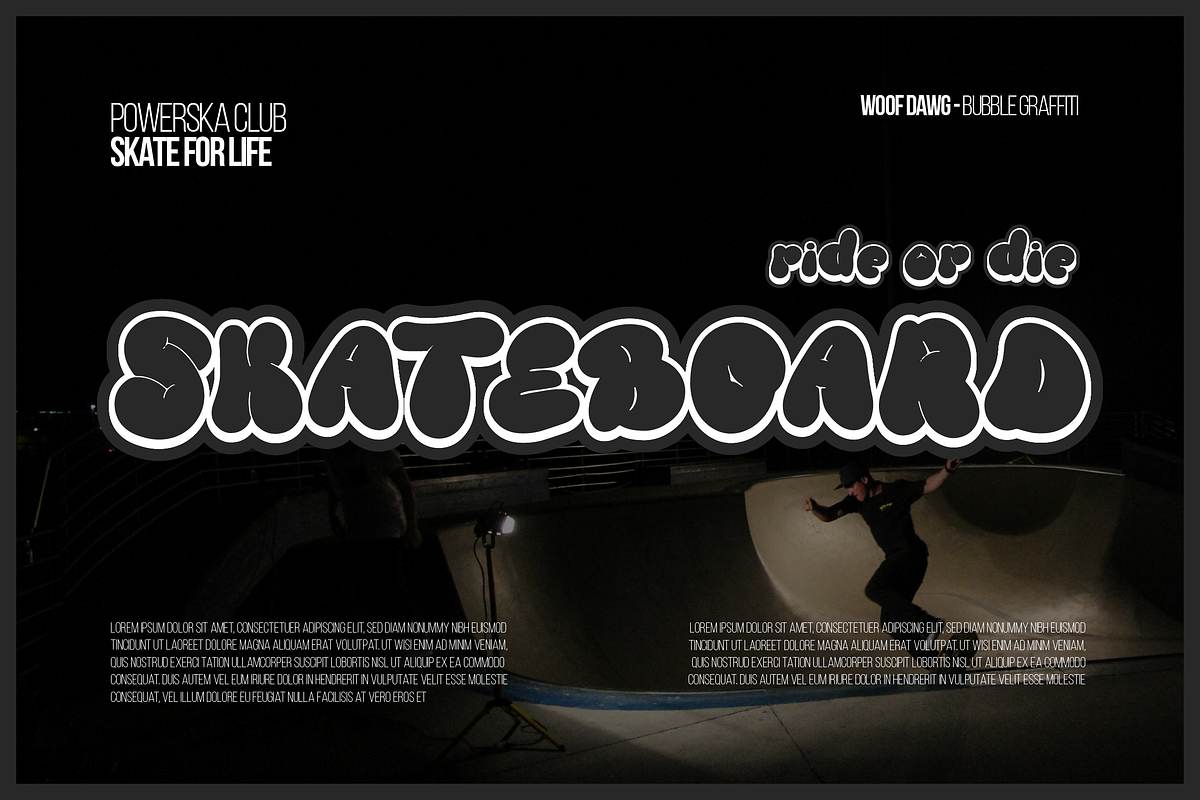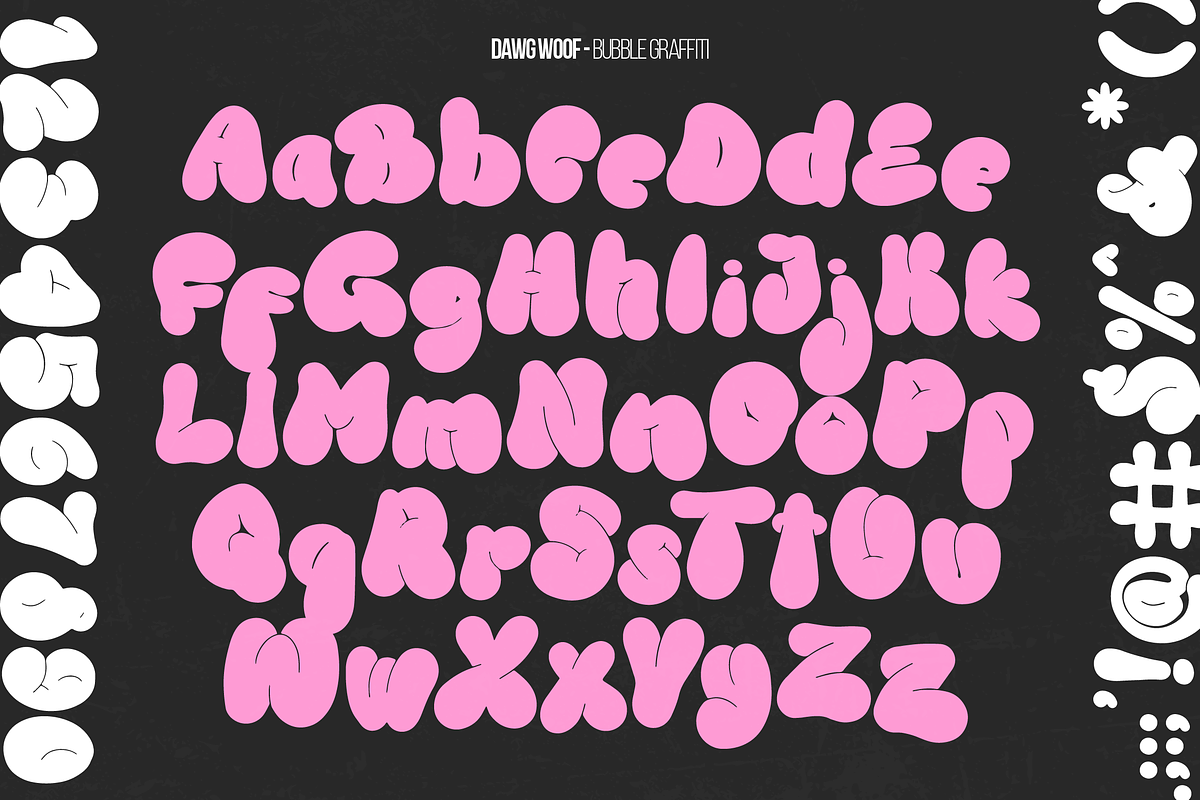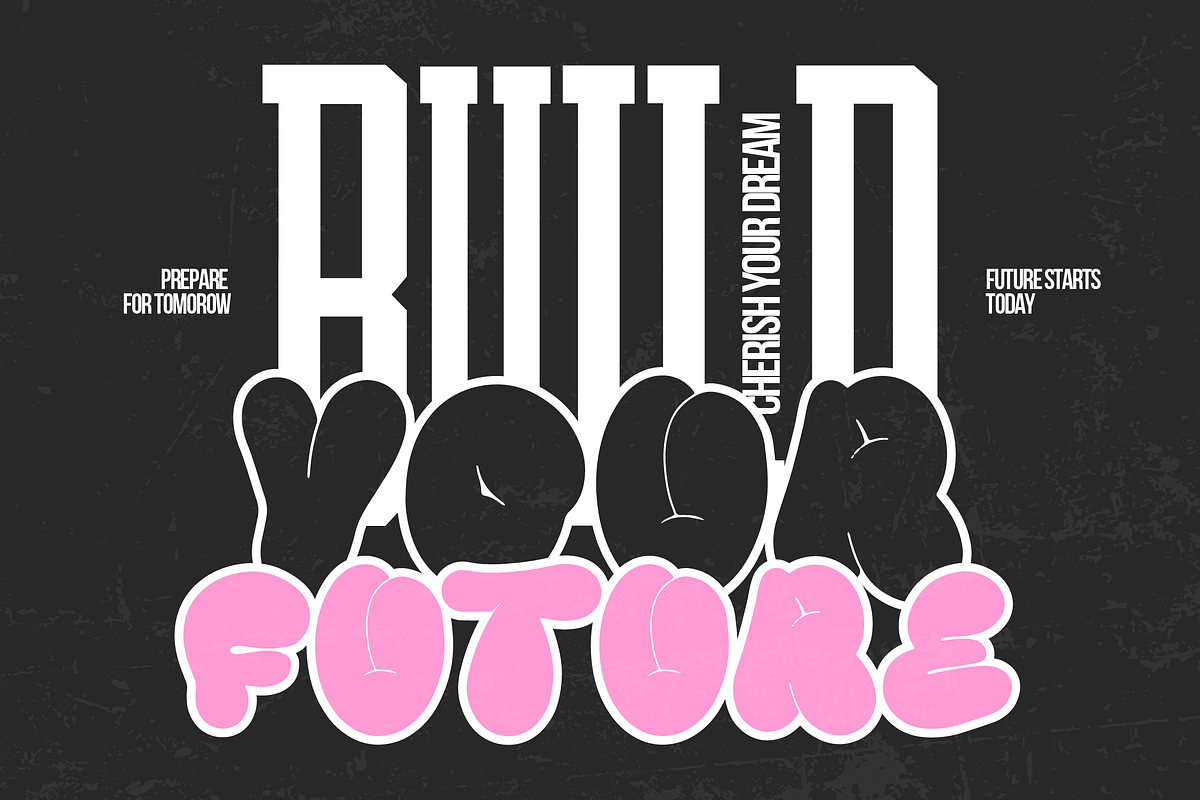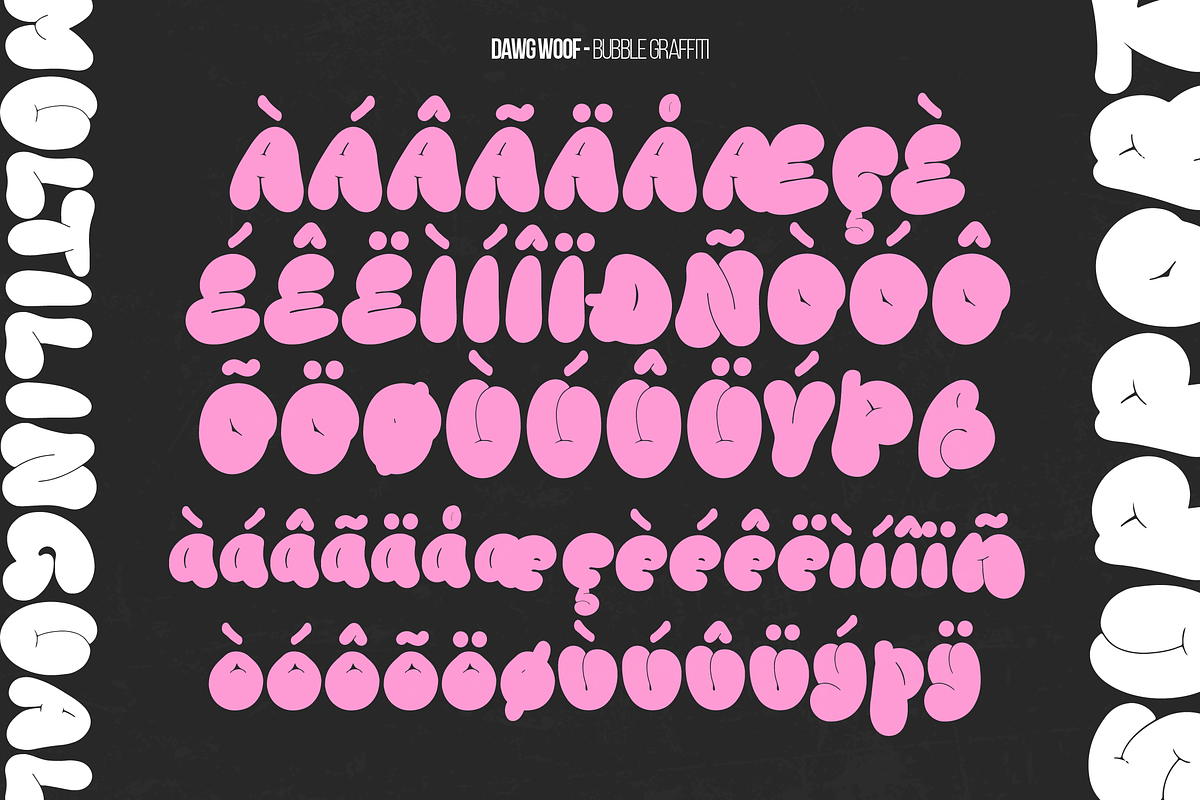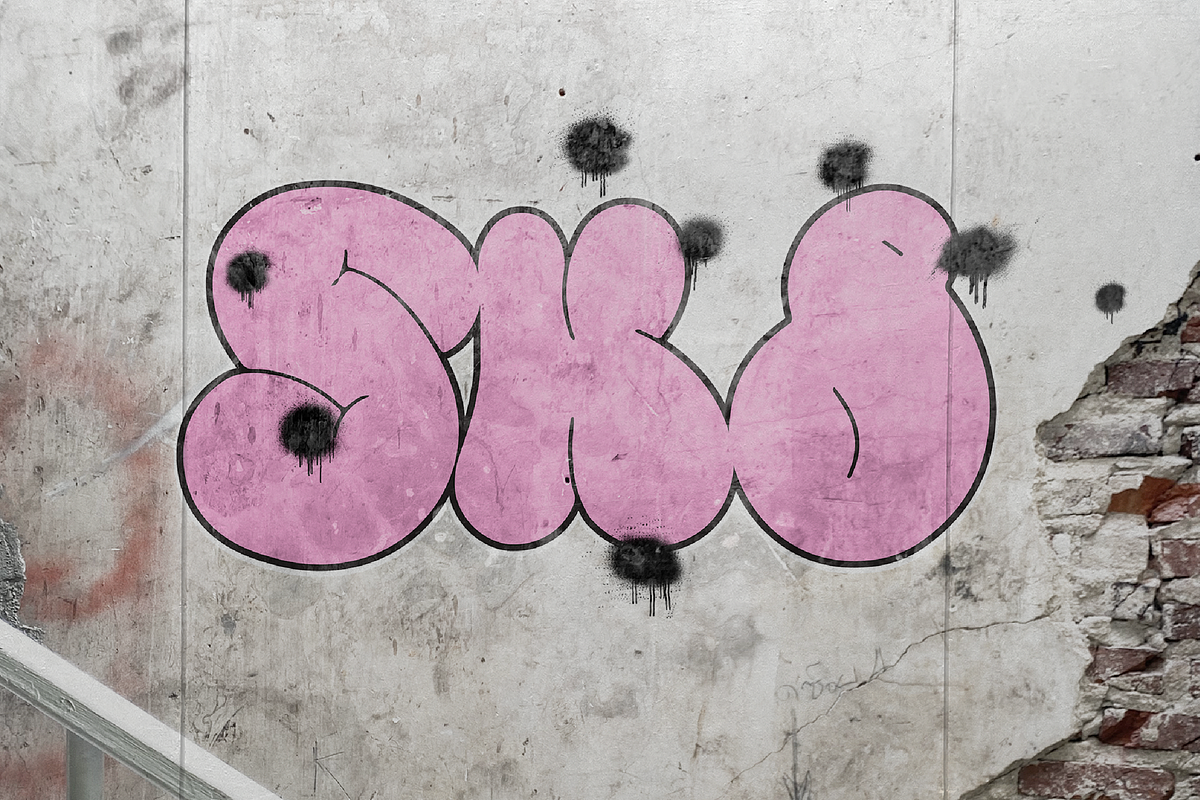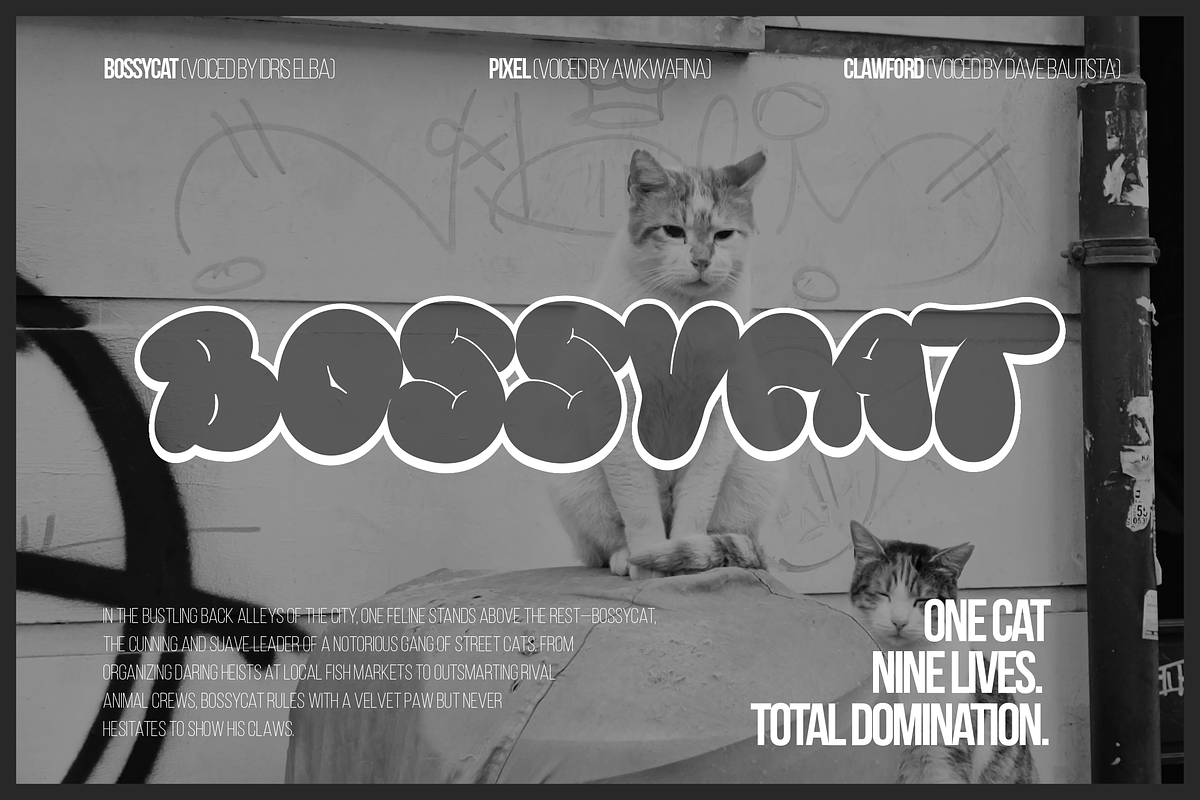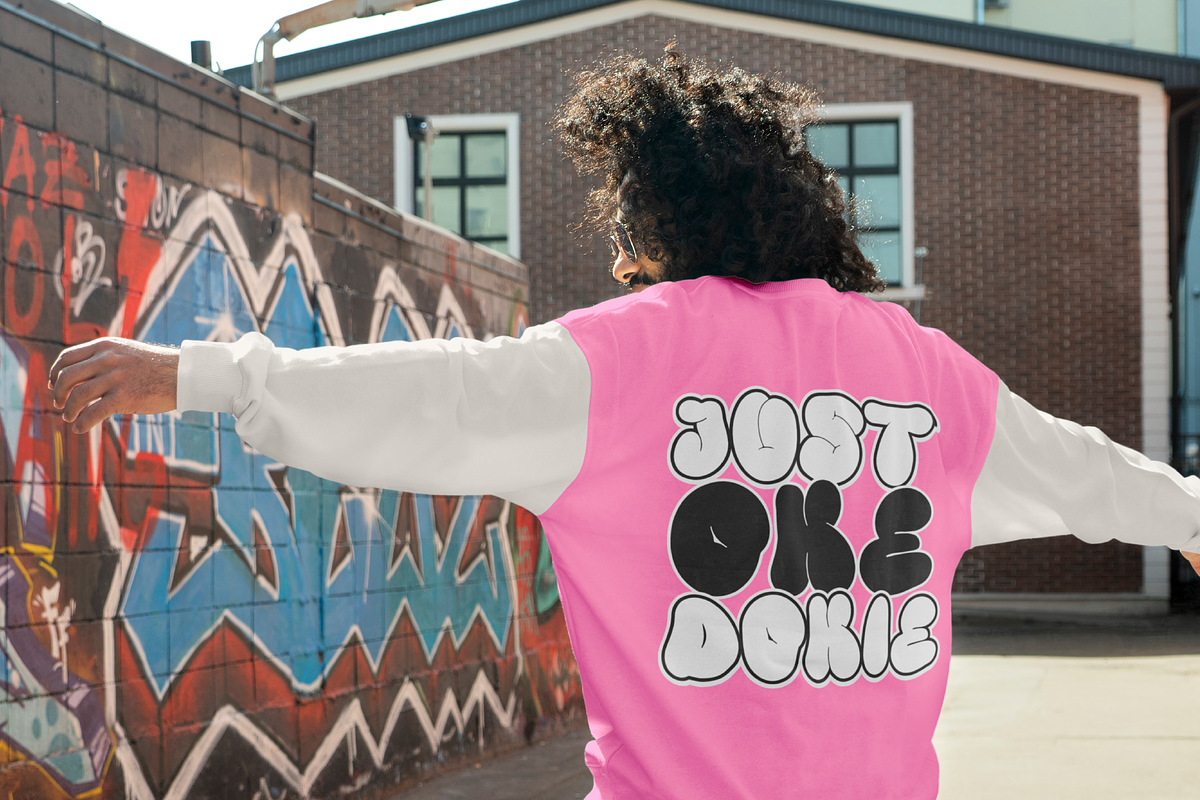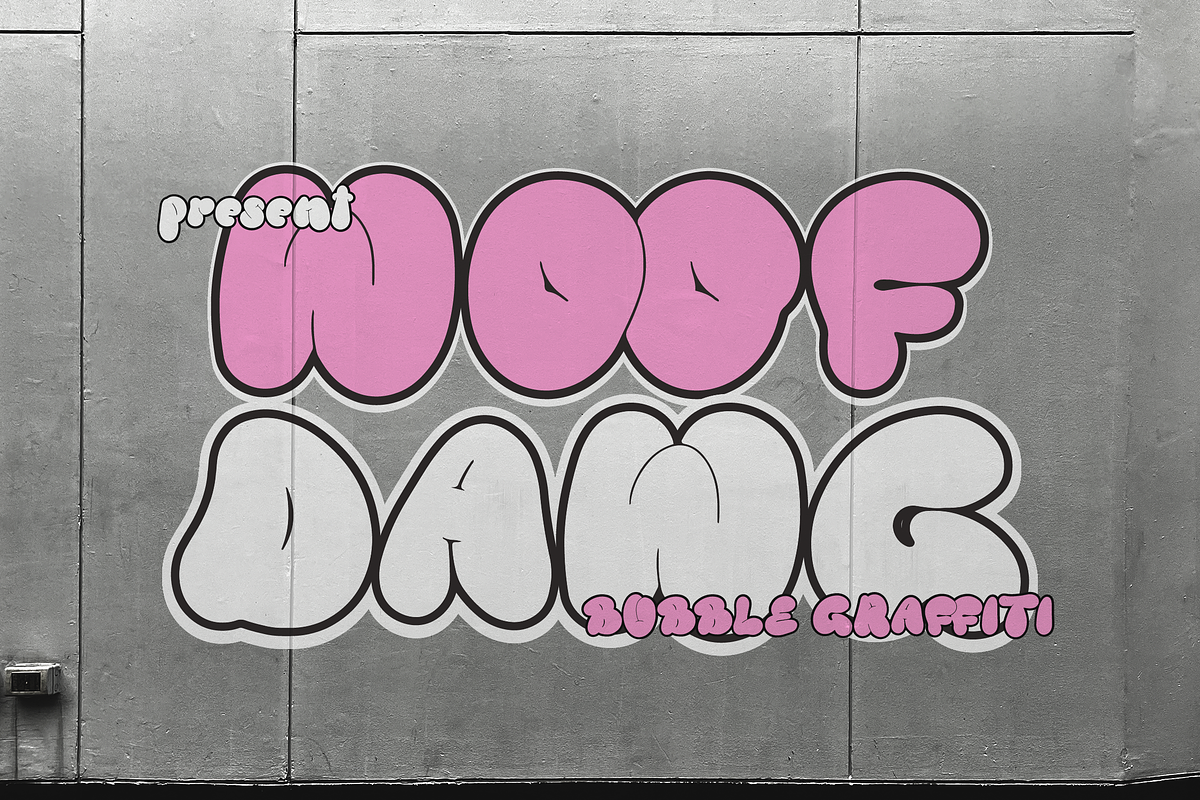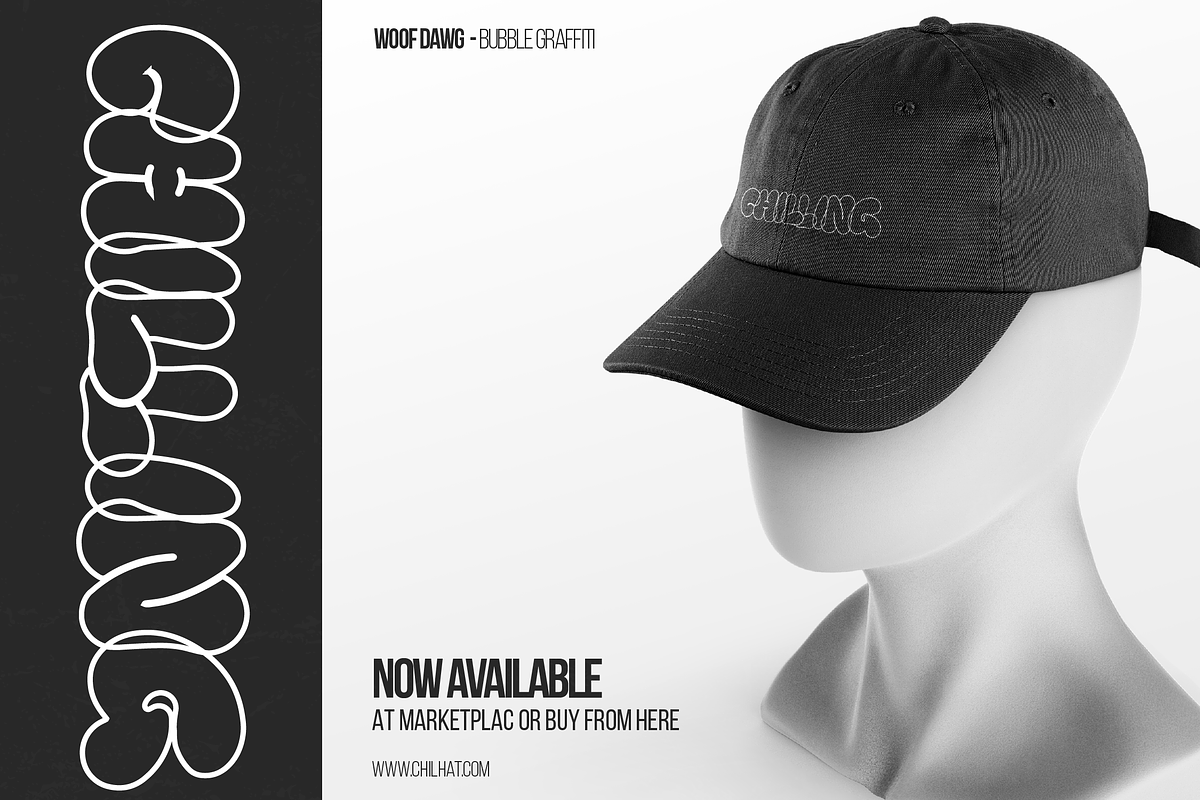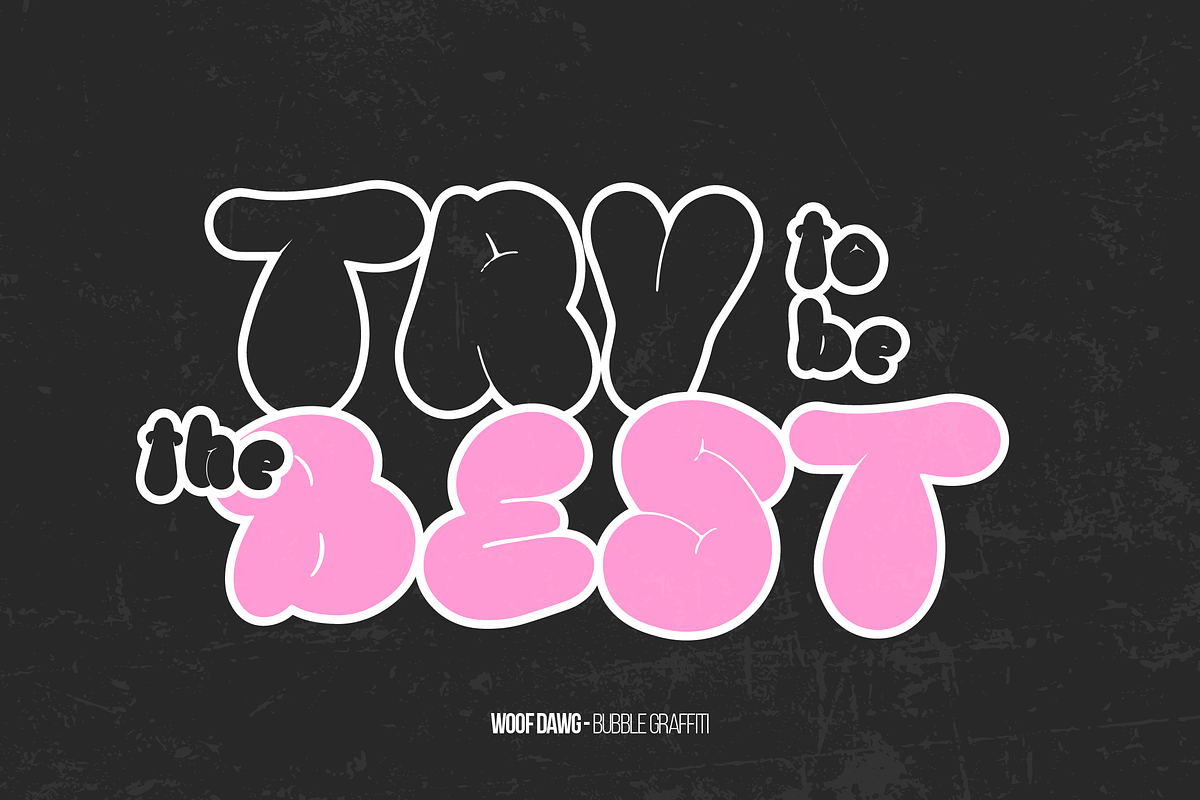
Woof Dawg | Bubble Graffiti
Woof Dawg | Bubble Graffiti, from Denustudios, suitable for any projects such as: logos, branding projects, homeware designs, product packaging, mugs, quotes, posters, shopping bags, t-shirts, book covers, name card, invitation cards, greeting cards, label, photography, watermark, special events, and all your other lovely projects that need a Bubble Graffiti taste.